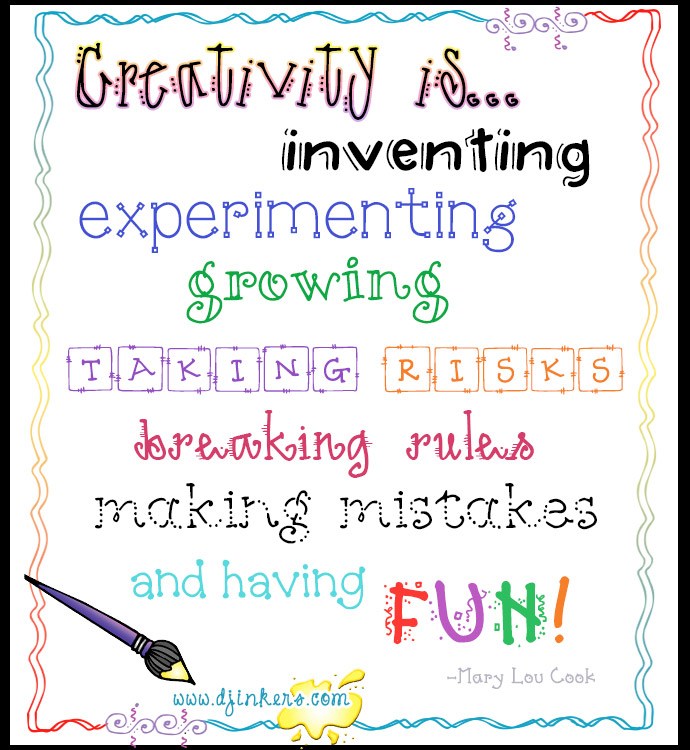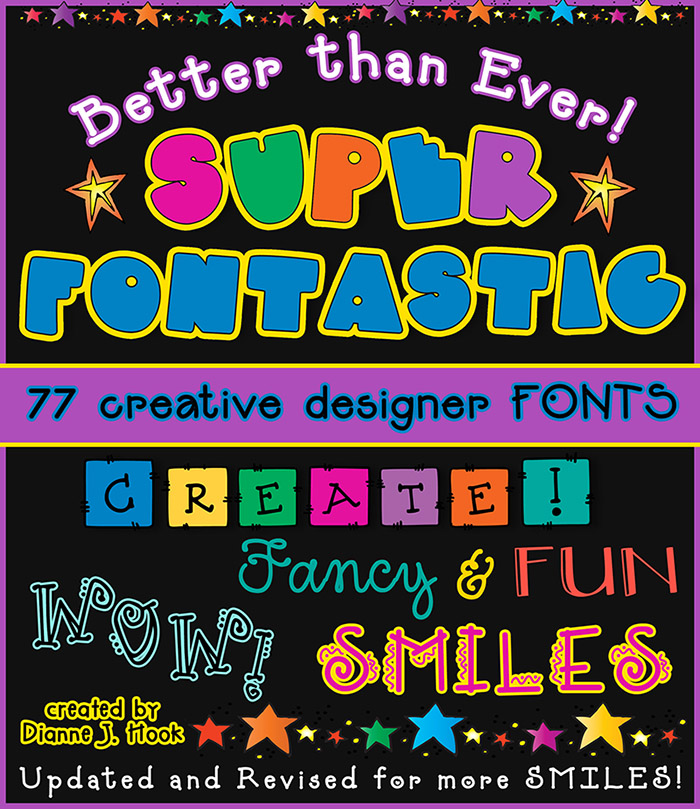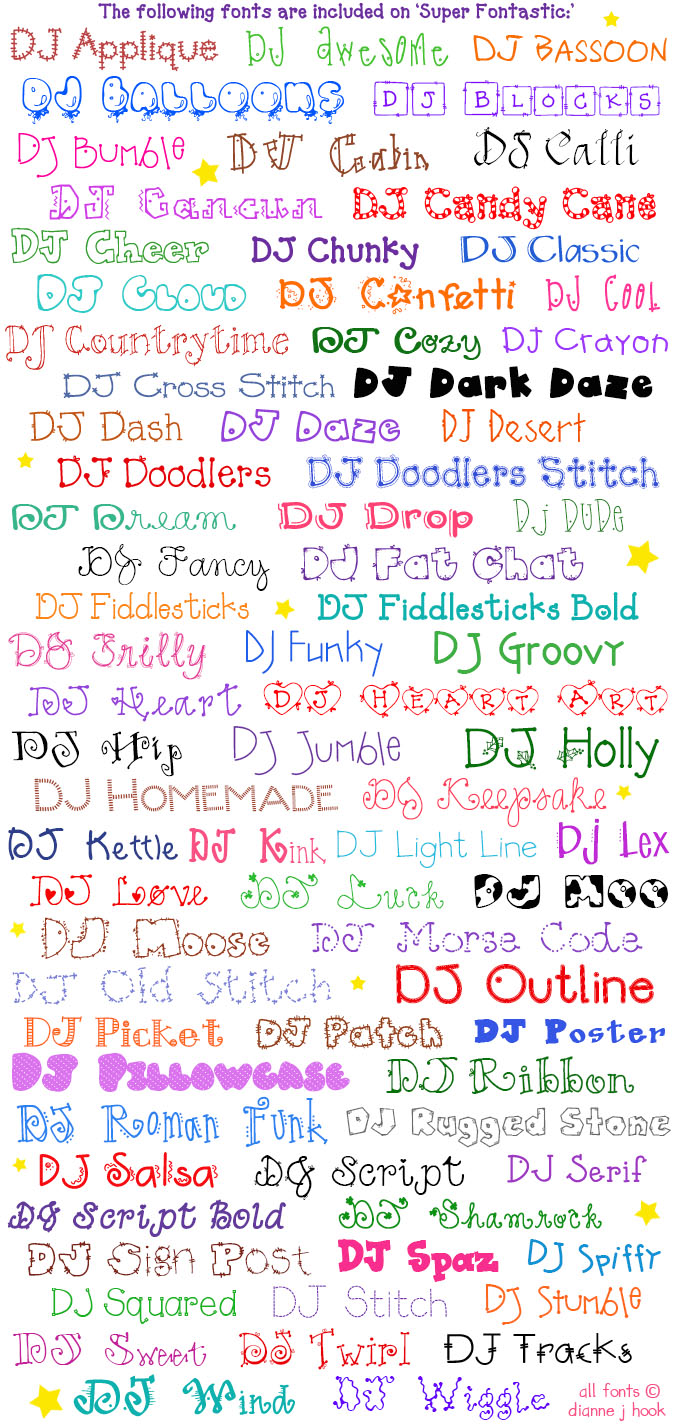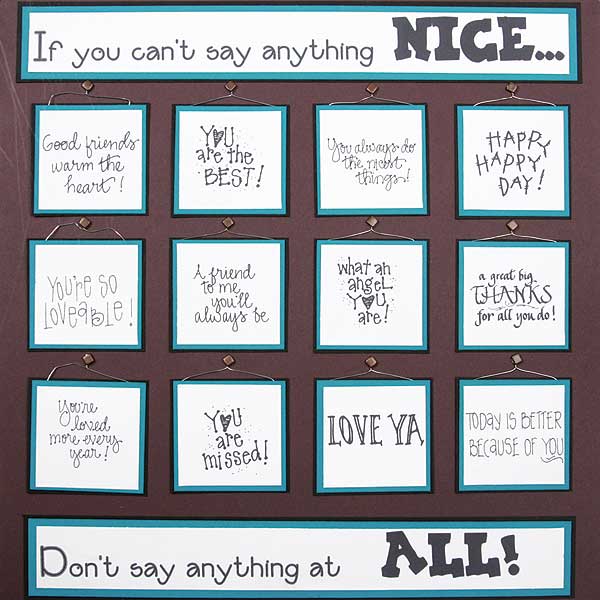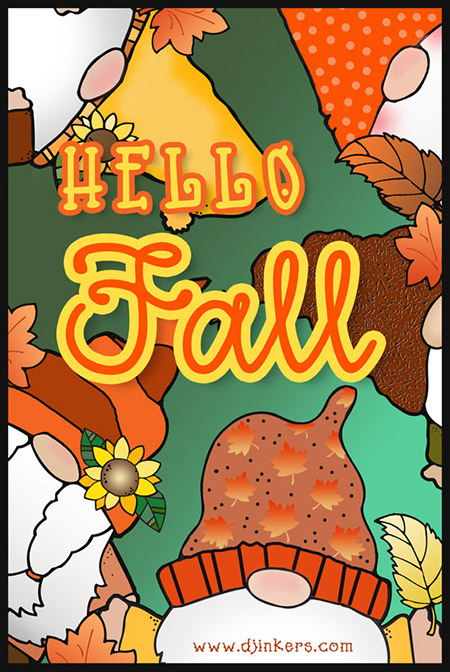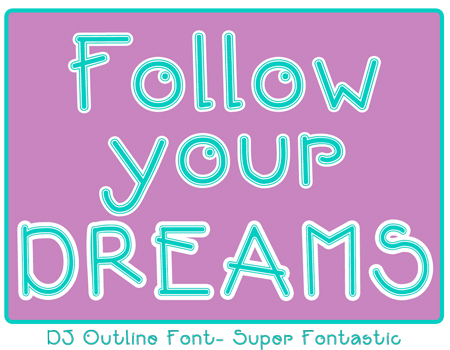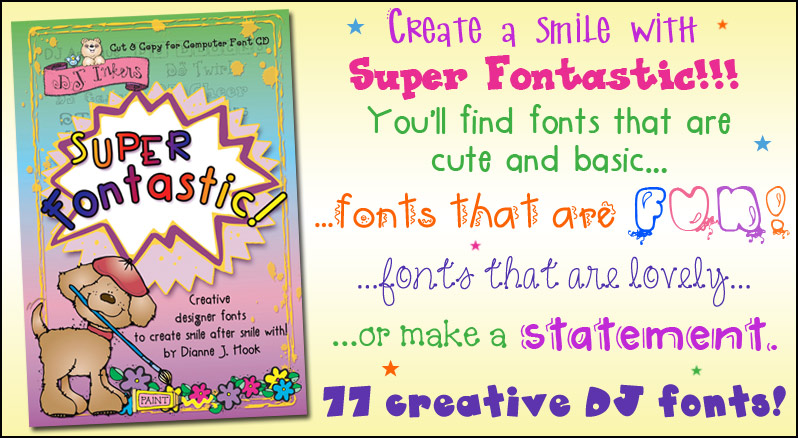
Download 77 cute fonts for school, home and creative lettering by DJ Inkers
Super Font-astic Collection - 77 Fonts by DJ Inkers
It's easy to see why Super Font-astic is our best seller!  You can make your project smile in just one click... use a DJ font! :) This collection is an amazing value with77 fabulous fonts  to choose from! You'll find everything from cute fonts to fancy or decorative fonts, holiday themed, block letters, dot letters and more. Plus, it's quick & easy to install... then you can create to your heart's content. Type up some fun today!